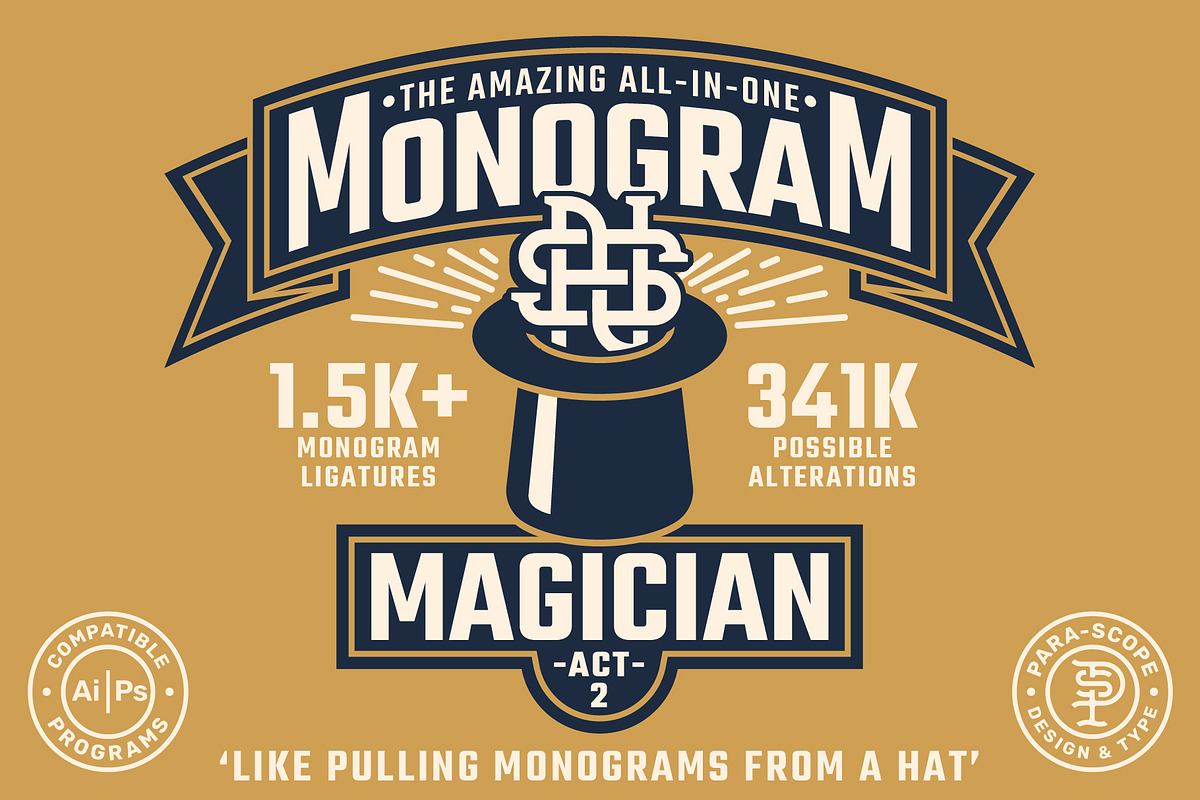
Bring a unique, artistic flair to your designs with MONOGRAM-MAGICIAN-ACT2 Font Free Download. This decorative, monogram-inspired typeface is perfect for logos, luxury branding, custom monograms, and vintage-style projects that need a sophisticated and creative touch.
MONOGRAM-MAGICIAN-ACT2 features intricate, stylized letterforms, designed to give your typography a distinct and elegant feel. It includes uppercase and lowercase letters, numerals, punctuation, and special characters, offering versatility for creative and personalized designs.
Ideal for upscale and high-end design projects that require a special, crafted look. For any commercial use, be sure to obtain the appropriate license. Download MONOGRAM-MAGICIAN-ACT2 Font Free Download today and add a magical, custom touch to your projects.